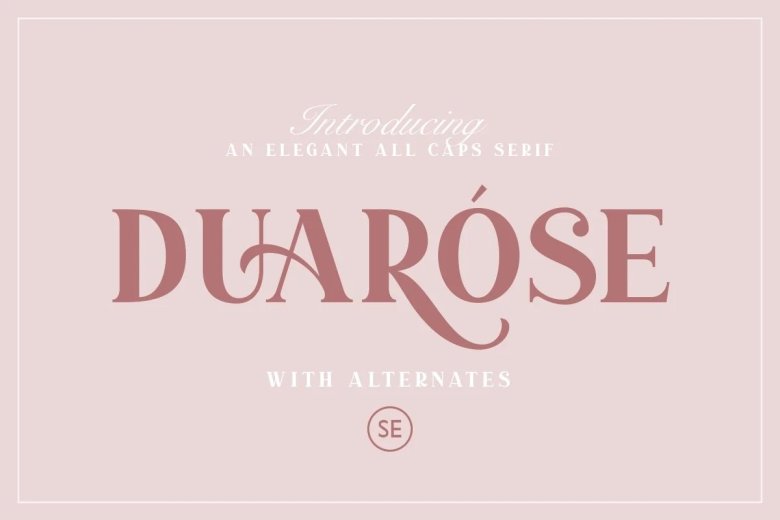
Duarose Font
Duarose Serif Font
Duarose Serif Font is an elegant serif typeface with touch of classic and simplicity. Made from font designer named Saridezra. A bunch of alternates up to 6 style for each characters that will make your presentation or logo even more stunning and stand out! Duarose also support Multi Language. and already PUA Encoded!